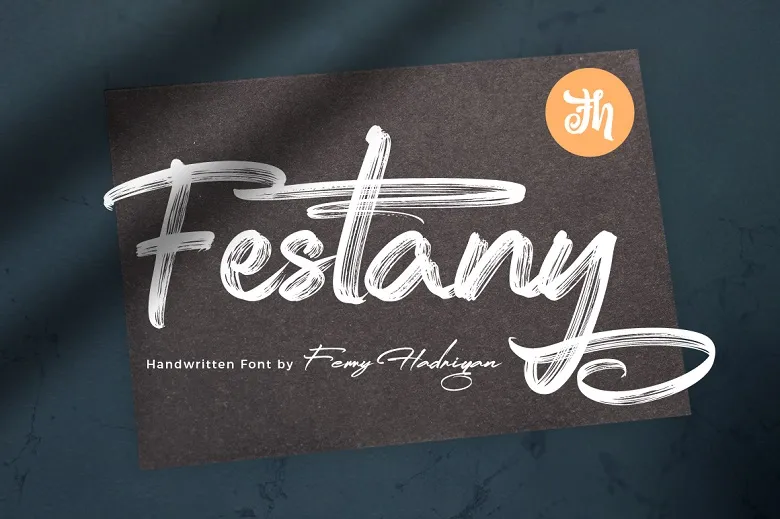
Festany Font is a brush script font that mimics text written with a brush, brush pen or any brush tipped instrument. It is prepared and posted by Ferry Hadriyan. Perfect for design, element design, wedding, event, t-shirt, logo, badges, sticker, and great work, and etc.